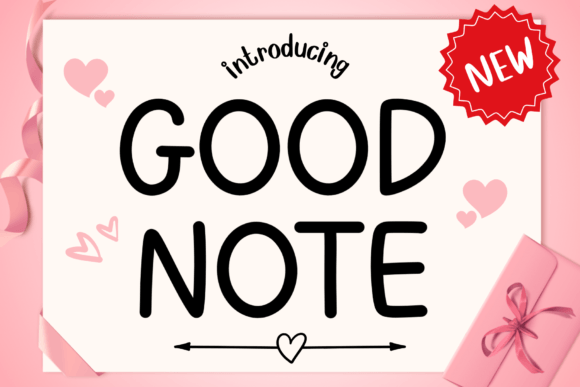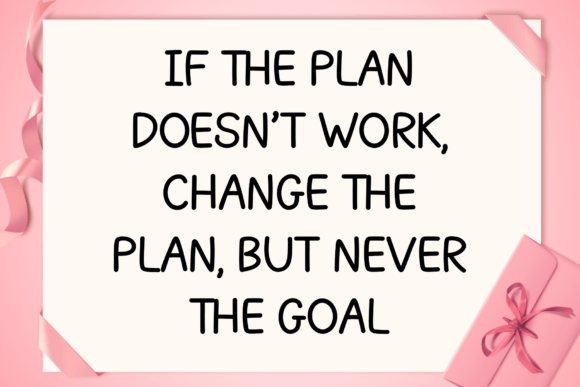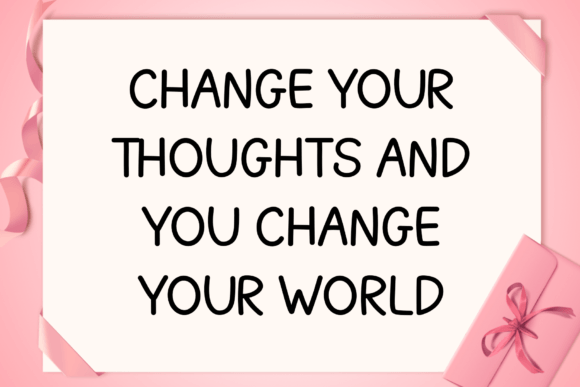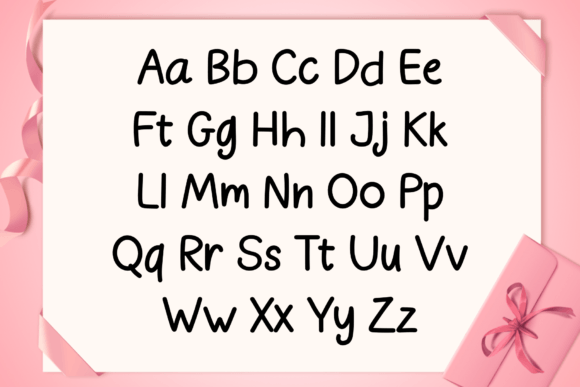
Goodnote Font: A Cute Handwritten Font for DIY & Craft Projects!
About the Goodnote Font
Step up your design game with Goodnote Font, a font that exudes confidence and style. Goodnote is a lovely and timeless handwritten font. It is the best choice for
creating eye catching logos, branding and quotes. Every letter has a unique and beautiful touch, which will make your design come alive!
Goodnote’s elegant, yet approachable handwritten style makes it ideal for logos, branding materials, short quotes, and social media graphics where a personal touch is desired. It excels in applications requiring a sense of handcrafted authenticity, such as invitations, packaging for artisan products, or short-form marketing materials. However, its delicate nature makes it unsuitable for body text or lengthy paragraphs; readability suffers at smaller sizes.
Consider pairing Goodnote with a clean sans-serif like Open Sans for body copy or a geometric sans-serif like Montserrat for a modern contrast. For a more traditional feel, a classic serif like Garamond or a slightly more playful serif like Playfair Display could create a sophisticated balance. Avoid pairing it with other highly decorative or script fonts, as this might overwhelm the design.
Goodnote projects a friendly and approachable, yet sophisticated personality. Brands focusing on handcrafted goods, artisanal food, boutique businesses, or personal branding initiatives would find it a particularly effective choice.